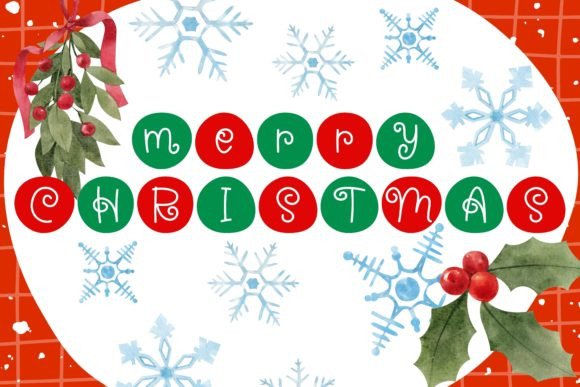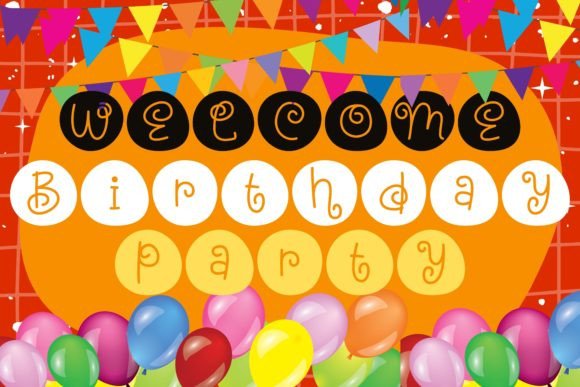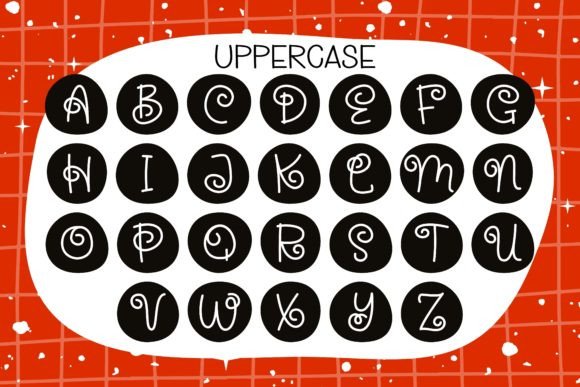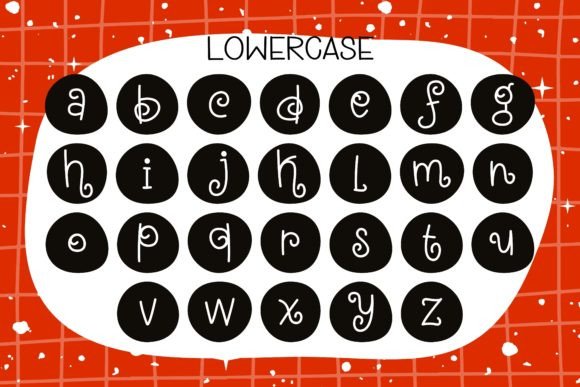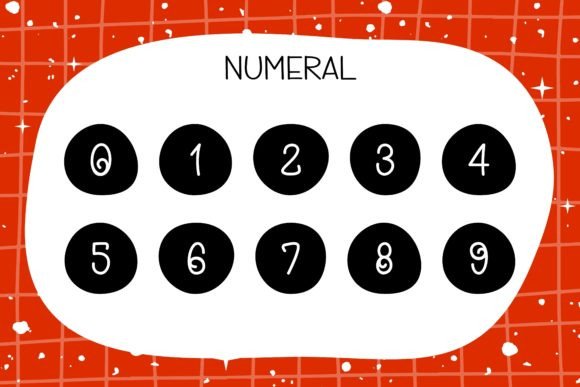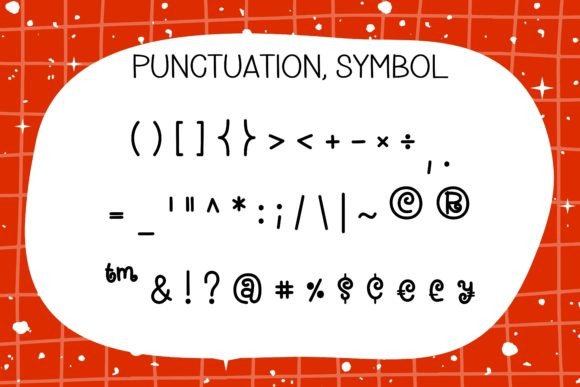
Introduction to Holiday Season Font
As I sat at my desk, surrounded by scraps of paper, glue sticks, and glitter, I stumbled upon the perfect way to elevate my holiday craft project. It was then that I discovered the Holiday Season Font, a delightful and playful design resource that instantly transformed my project from ordinary to extraordinary.
With its cute and adorable decorative style, the Holiday Season Font is the perfect addition to any creative project. Whether you’re designing festive invitations, colorful Christmas projects, or party decorations, this font is sure to add a friendly touch. Its versatility makes it a valuable resource for designers, allowing them to take their projects to the next level.
What sets the Holiday Season Font apart is its high-quality design and transparent background, making it easy to use in a variety of applications, from social media posts to clothing and greeting cards. In this article, we’ll dive into the details of this fantastic font and explore its many uses.
Key Features of Holiday Season Font
- Unique, festive design ideal for creative projects related to the holiday season
- Designed with a bold, eye-catching style that adds a touch of holiday cheer to any creative project
Honest Review: Holiday Season Font
I recently stumbled upon the Holiday Season Font while searching for a design resource to enhance my creative project. I was impressed by its festive vibe and decided to give it a try.
Here are some things that worked well for me: ✨
- High quality and crisp graphics
- Translucent background for flexible design options
However, I did encounter some limitations: ⚠️
- Only a few styles and weights available, which might limit its versatility
- Not ideal for professional or commercial projects due to its casual nature
The Holiday Season Font is a versatile and high-quality design resource that can be used in a variety of creative projects. With its transparent background, it can be easily integrated into any design, making it a perfect addition to your holiday-themed project.
The Holiday Season Font is perfect for use in holiday-themed projects, such as Christmas cards, gift tags, and party invitations. It can also be used in other creative projects, such as social media graphics and advertising materials.